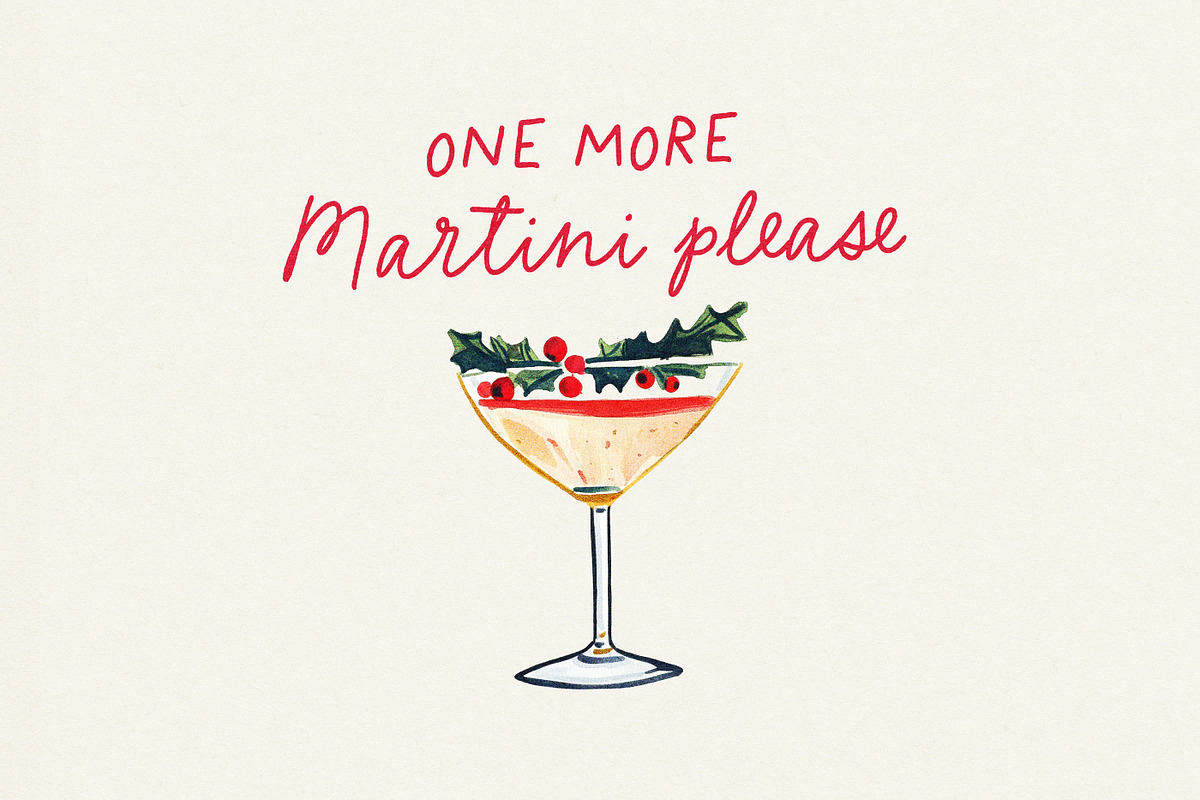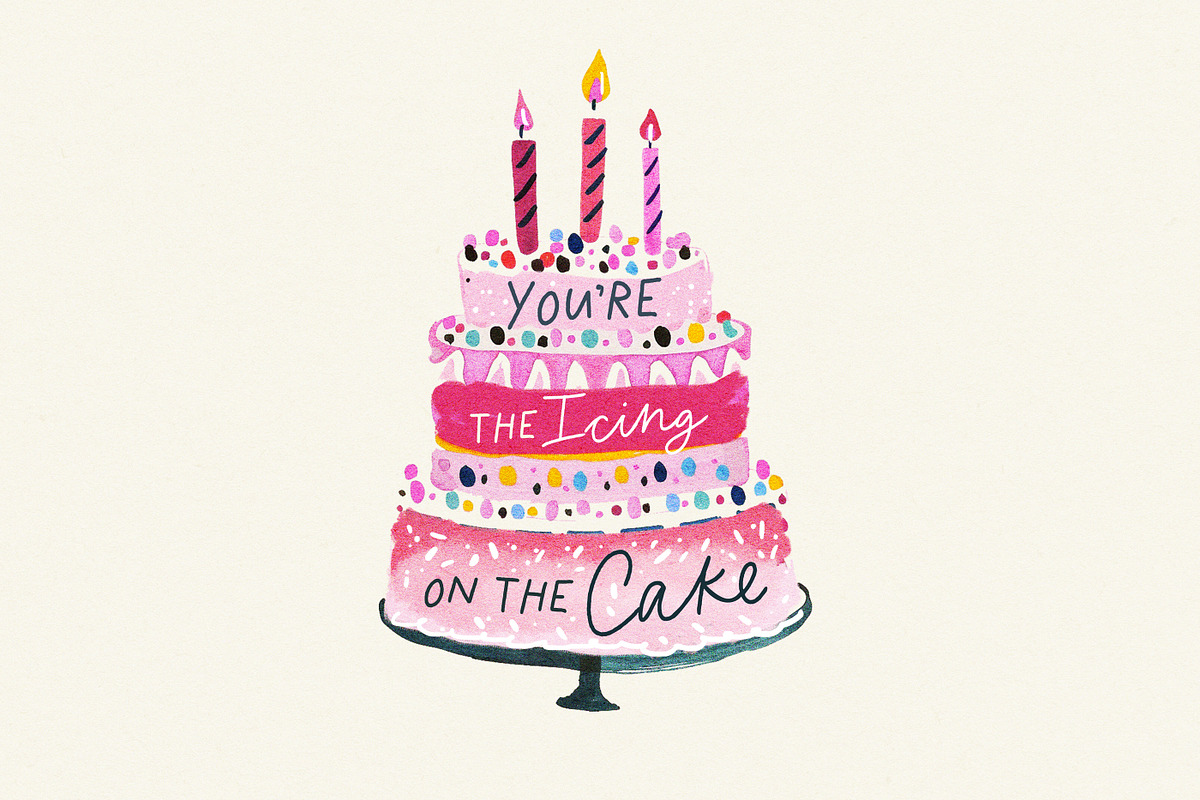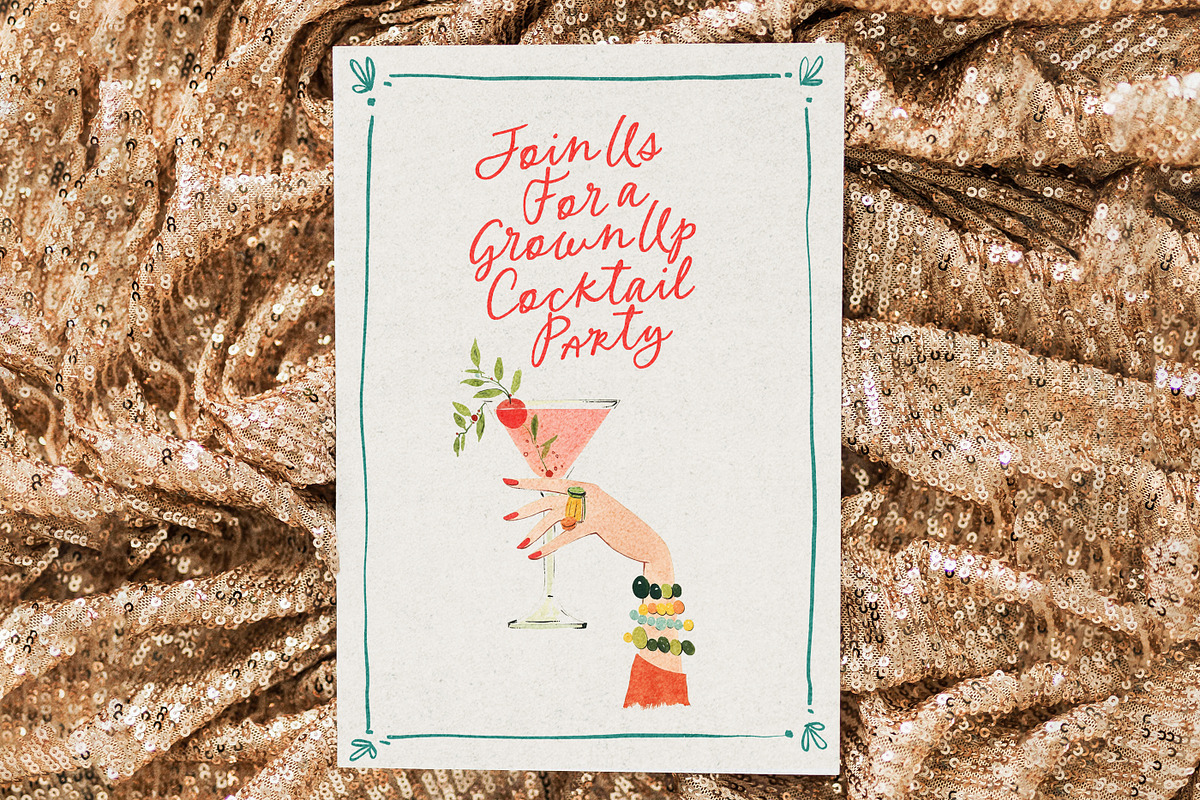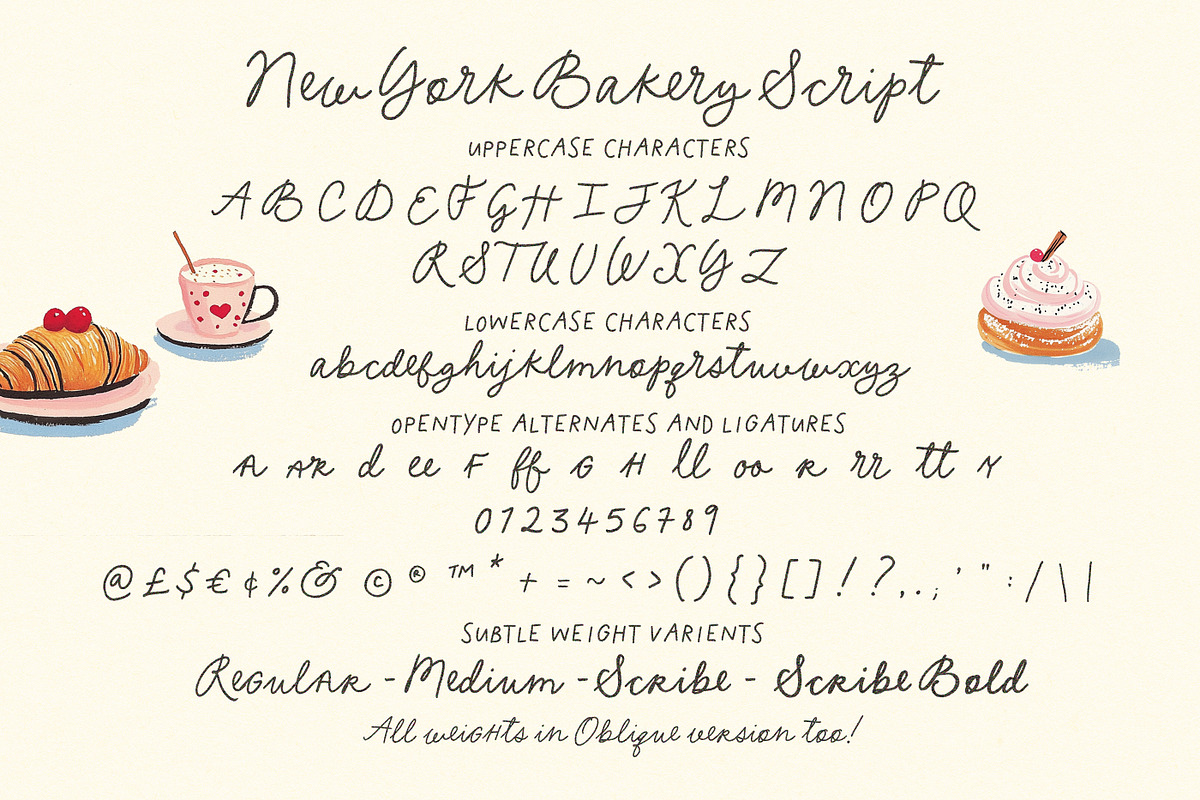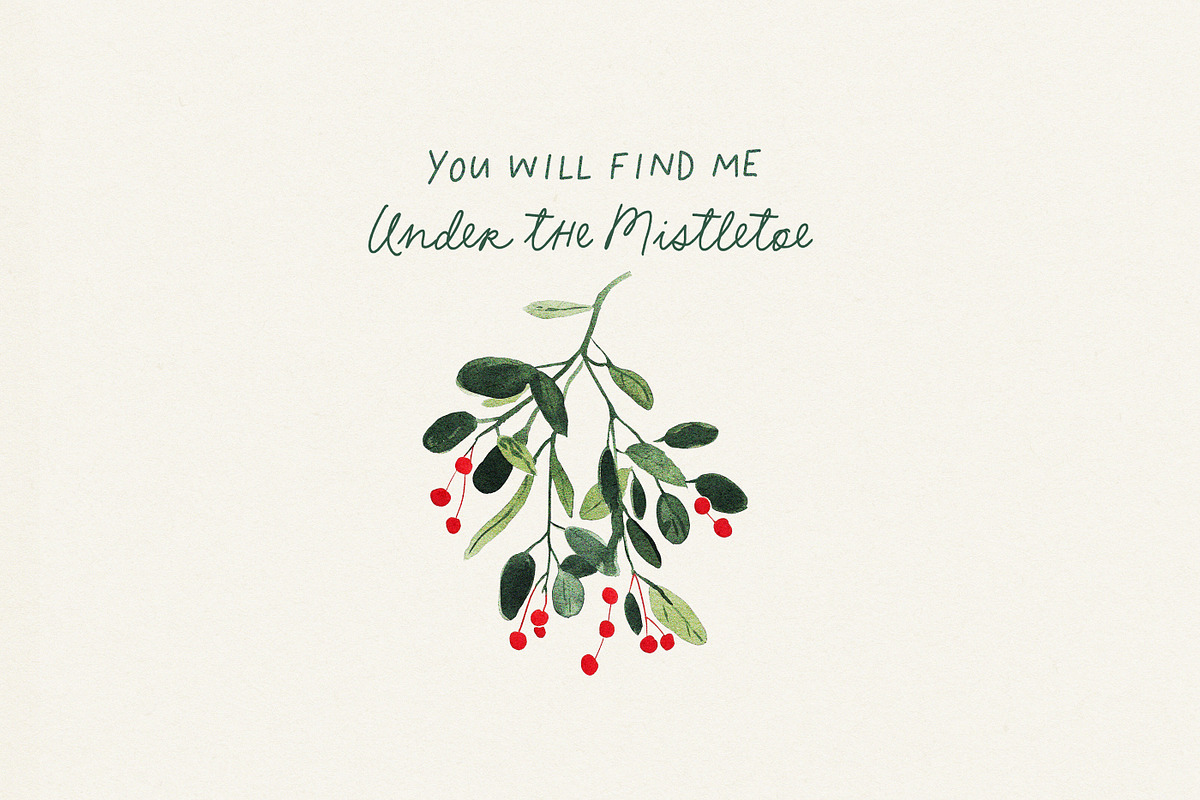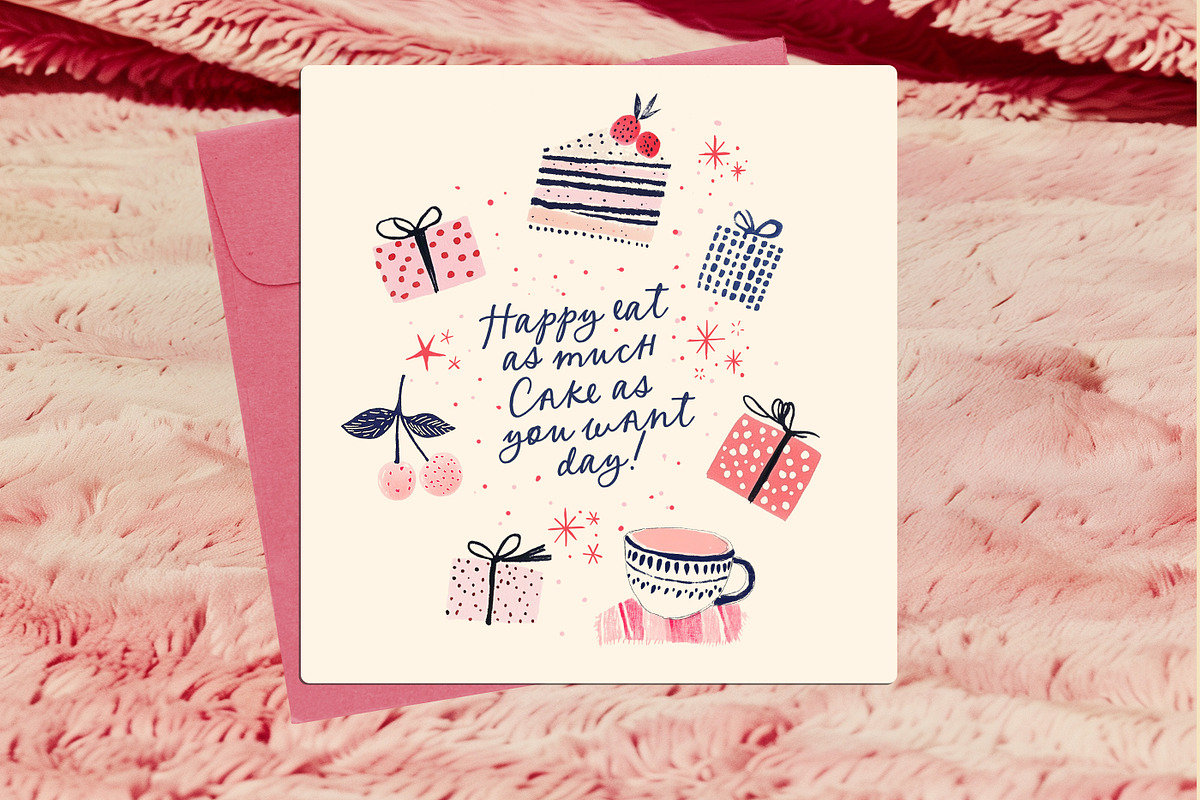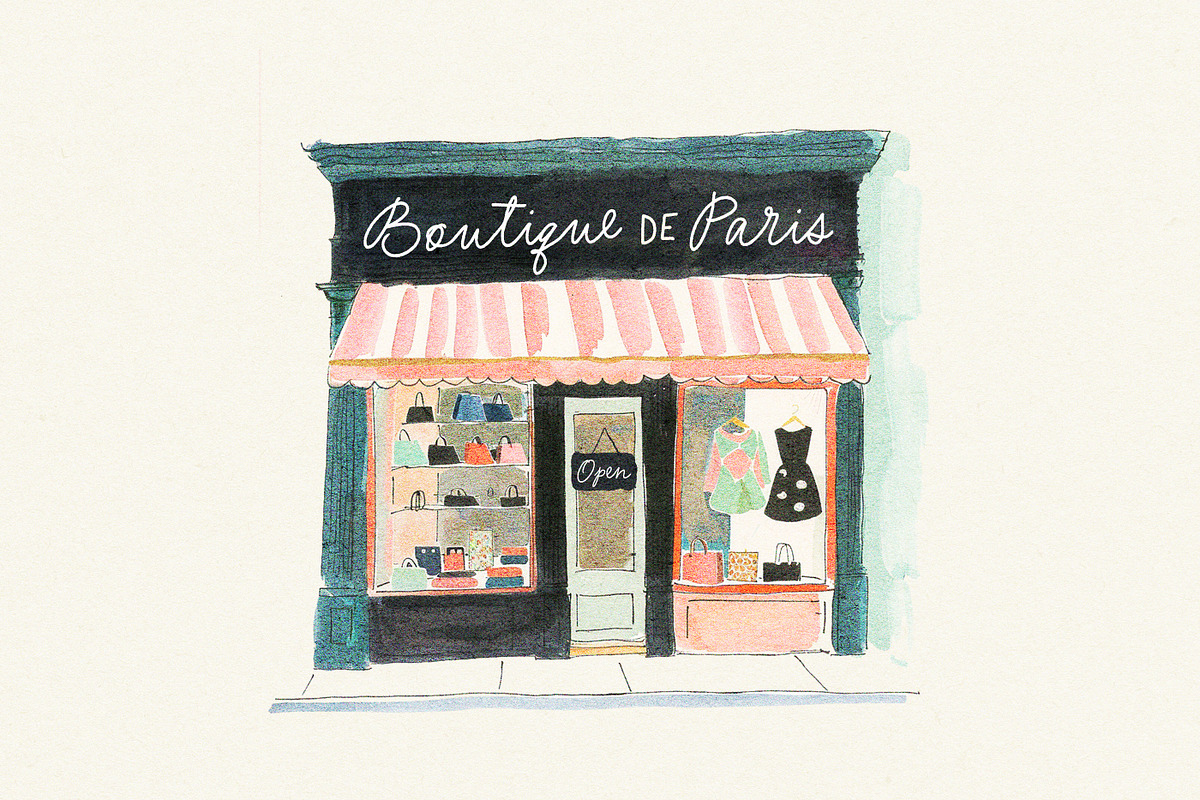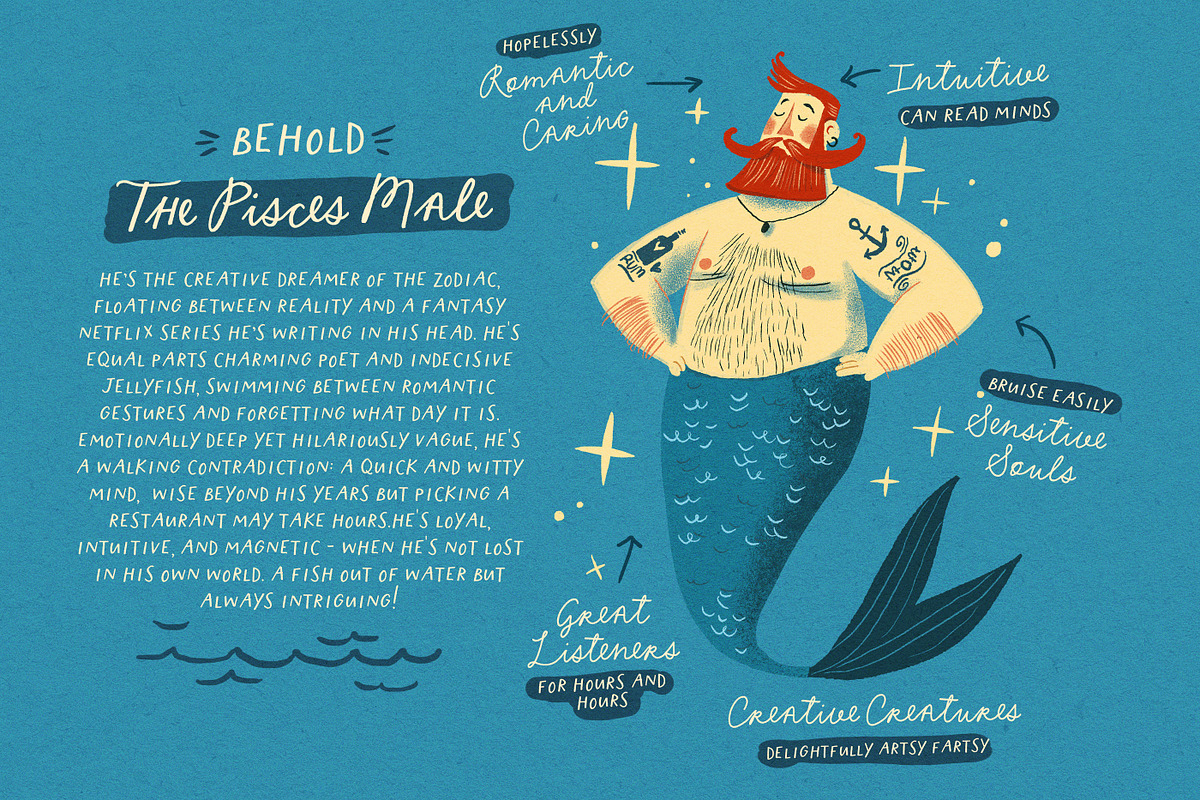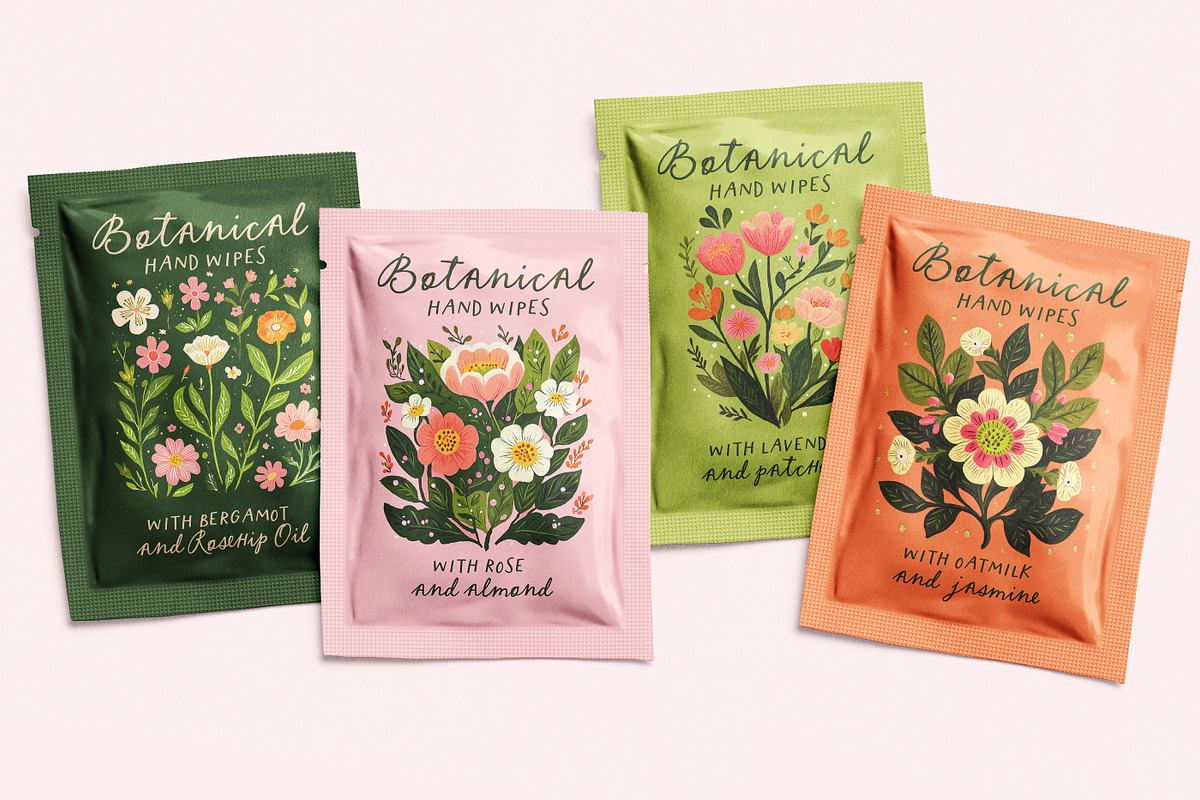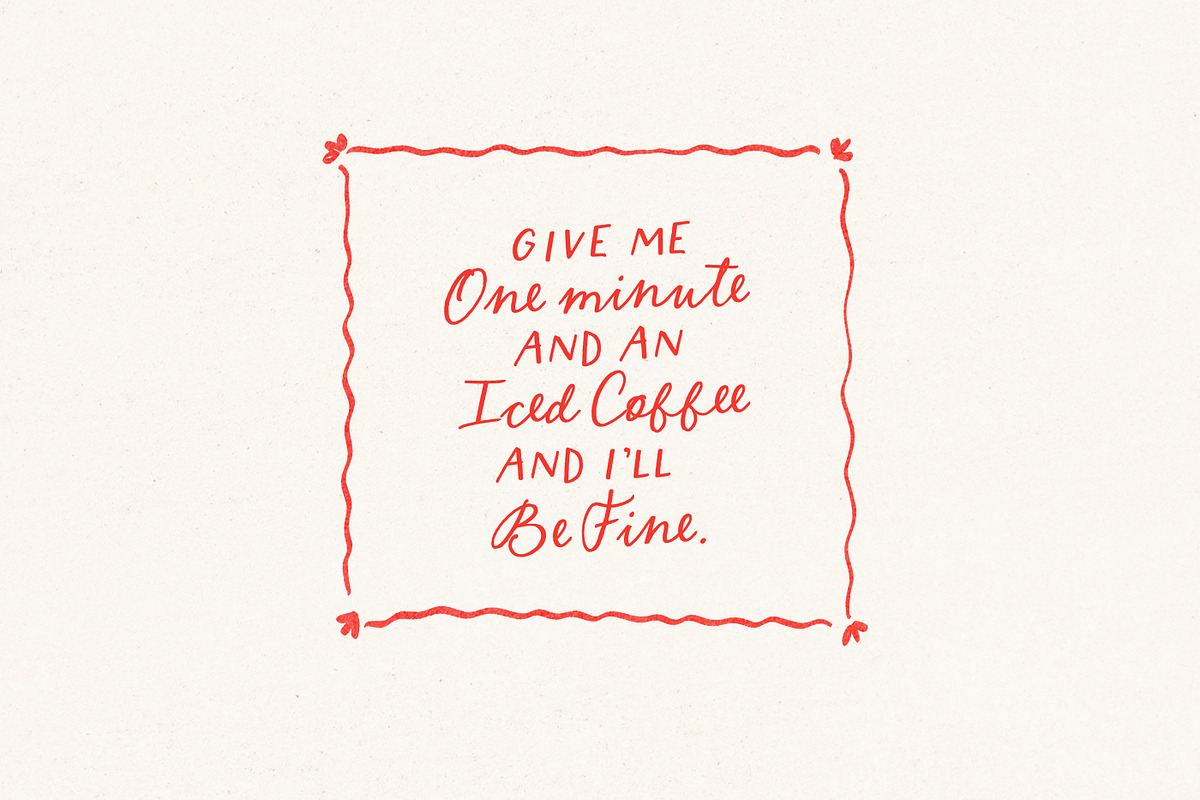
New York Bakery Font Duo
Say hello to the New York Bakery Font Duo!
A sweet little flambouyant handwritten script, paired with a quirky all caps friend :)
Designed to emulate quaint handwritten lettering - its perfect for illustrators, greeting cards, cute quotes, sweet branding and so much more :)
Includes subtle weight variations :
The script is available in 4 slight weight variations : Regular, Medium, Scribe and Scribe Thick. Scribe having a little bit of a calligraphic weight to it. All of the weights come in a slightly Oblique version too.
The caps comes in 5 slight weight variants : Regular, Medium, Thick, Scribe and Scribe Thick.
Opentype Extras The Script has some extra Opentype alternate letters and ligatures that really add some extra quirk to the typeface :)